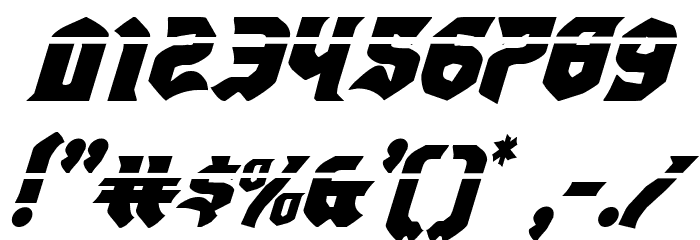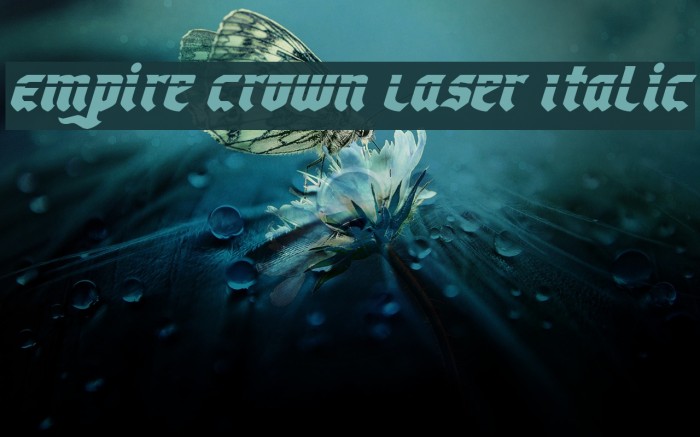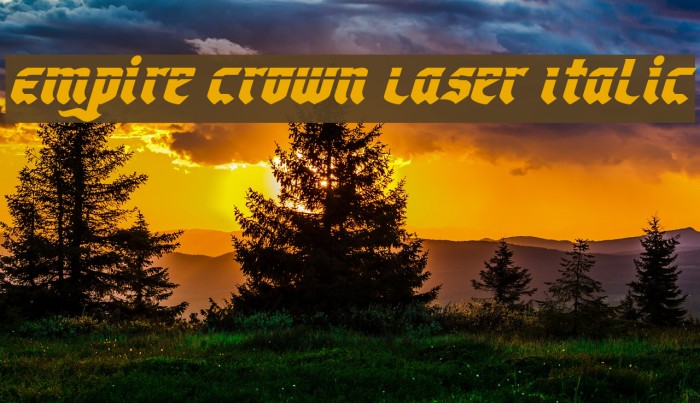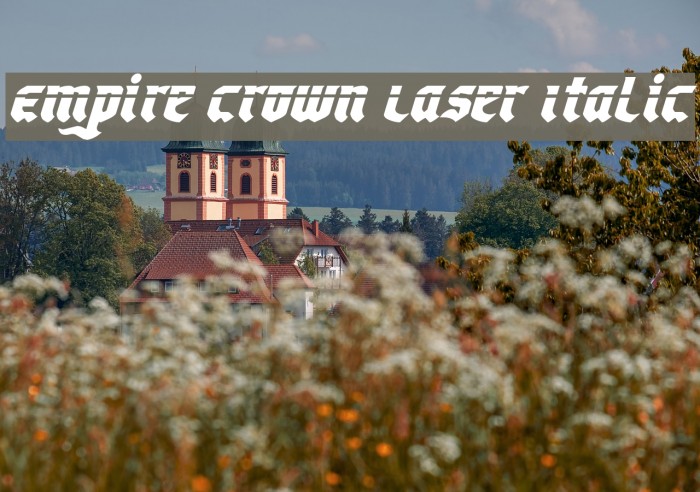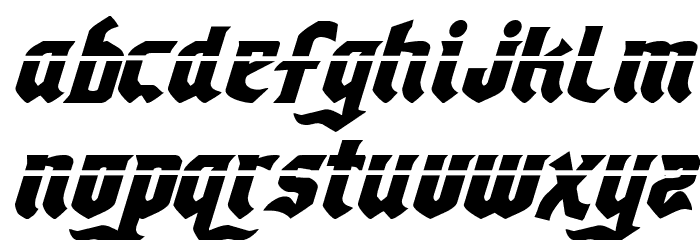
Empire Crown Laser Italic Font
This font features a bold and dynamic style with sharp, angular edges and a distinct italic slant. The characters are heavily stylized, giving them a futuristic and aggressive appearance. The uppercase and lowercase letters maintain a consistent design, with exaggerated serifs and a strong presence. The numbers and special characters follow the same bold and angular theme, ensuring uniformity across all glyphs. This font's unique design makes it stand out, ideal for projects that require a strong visual impact.
A bold, angular, and italicized font with a futuristic and aggressive style.
• Proposed Projects: Ideal for branding, logos, video game titles, and posters that require a bold and futuristic look.
• Category: Decorative/Display
• Bold: Yes
• Italic: Yes
• Weight: Bold
• Width: Normal
• Character Spacing: Tight
• Contrast: High
• Overall Style: Modern
• Use Case: Headlines, Logos